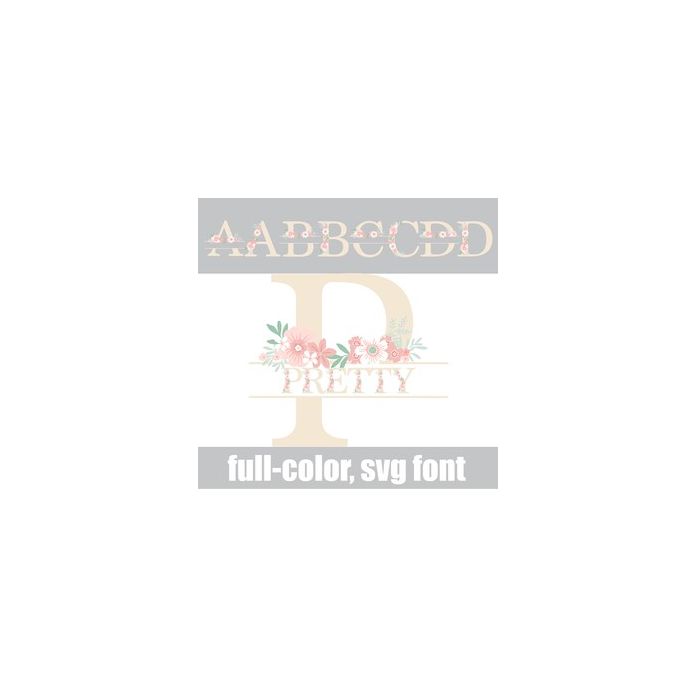
Pretty in Proposal Color Font
This full-color font features a pretty serif font with an open banner in the middle of each uppercase letter, making a great monogram font. The lowercase is just florals. There is an alt case w/ additional colors you can access through your system or Silhouette's glyph map. This font works best for titles, displays, posters and more. Please note color fonts will show as black in non compatible programs. This font type is compatible with Silhouette Studio.